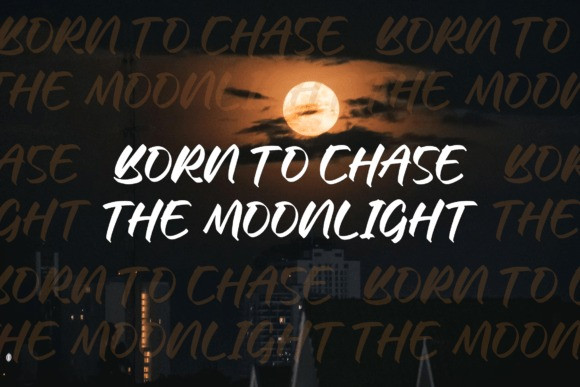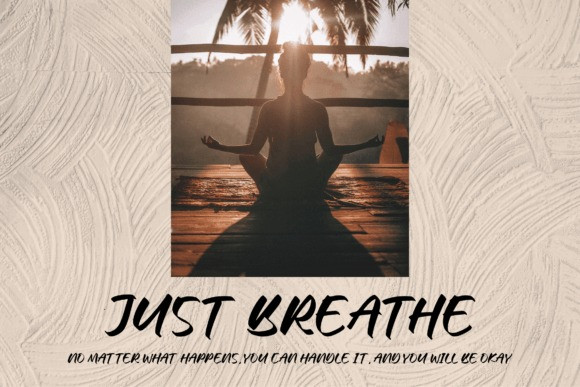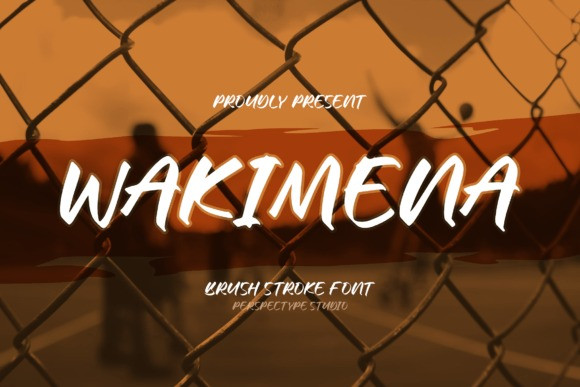
Wakimena Font
Wakimena – Brush Stroke Font is suitable for any projects such as logos, branding projects, homeware designs, product packaging, mugs, quotes, posters, shopping bags, t-shirts, book covers, name cards, invitation cards, greeting cards, labels, photography, watermark, special events, and all your other lovely projects that need a beautiful script taste.